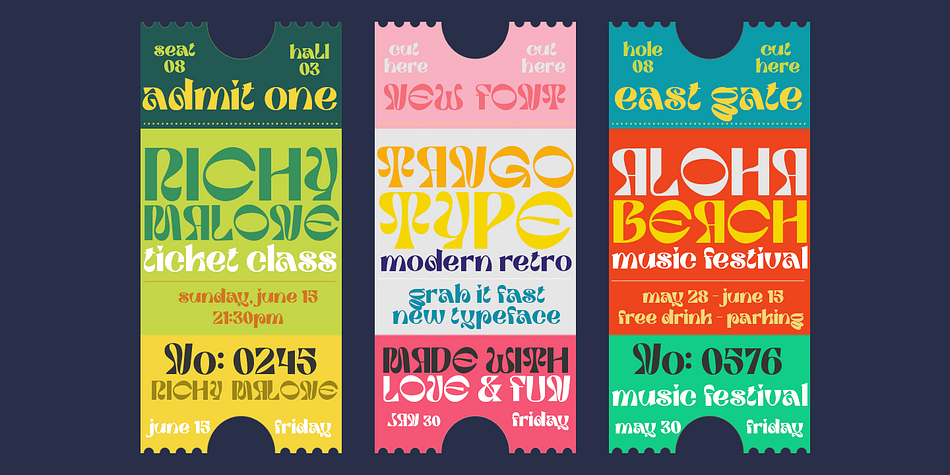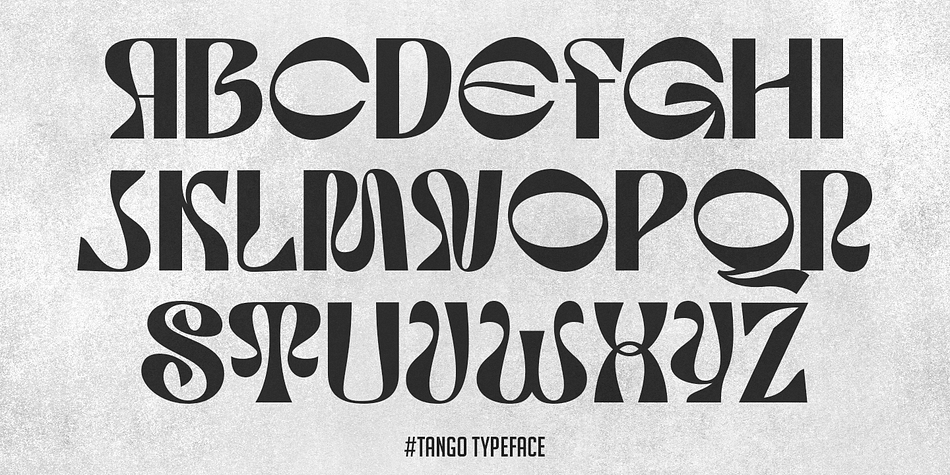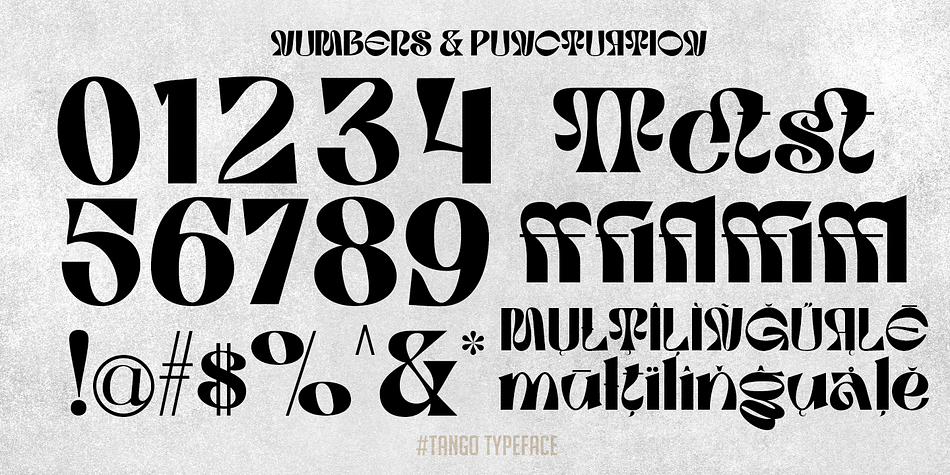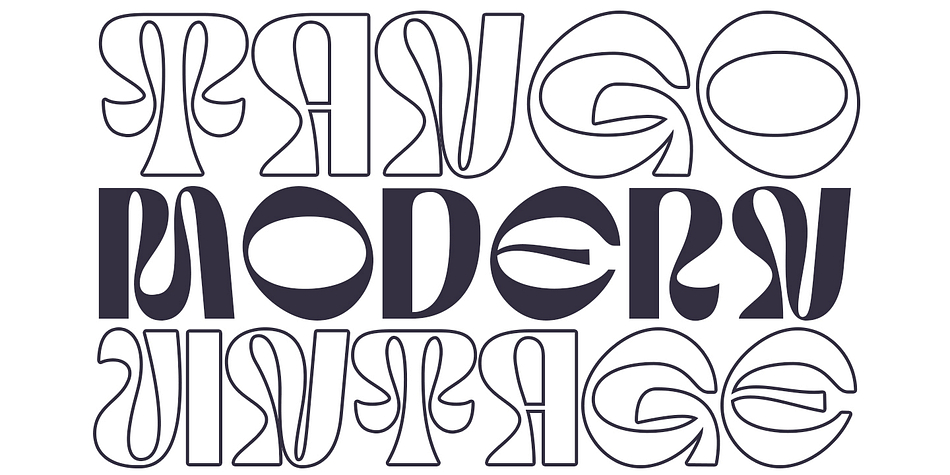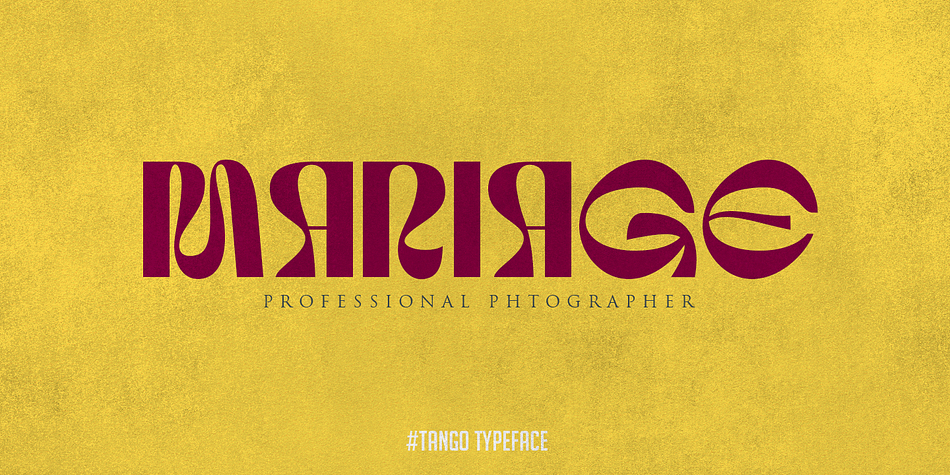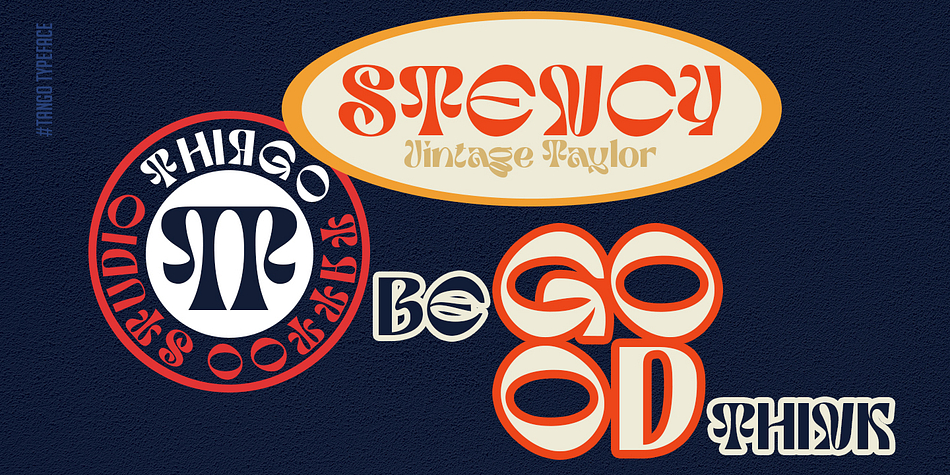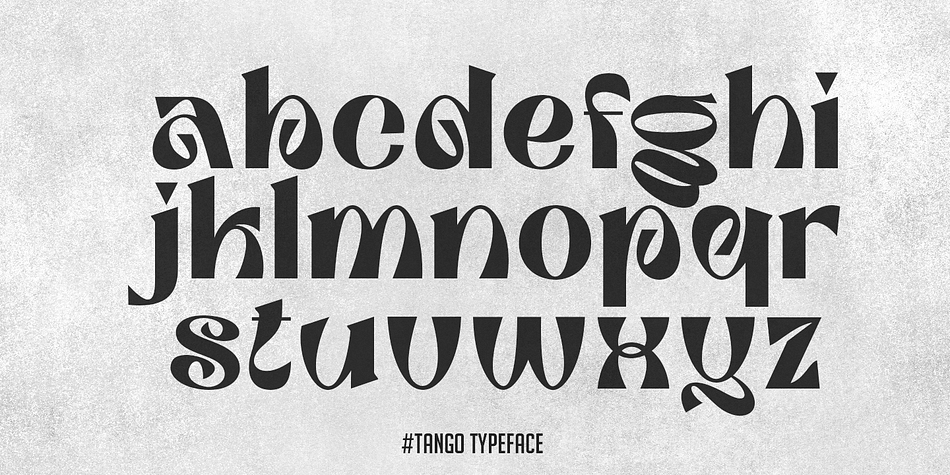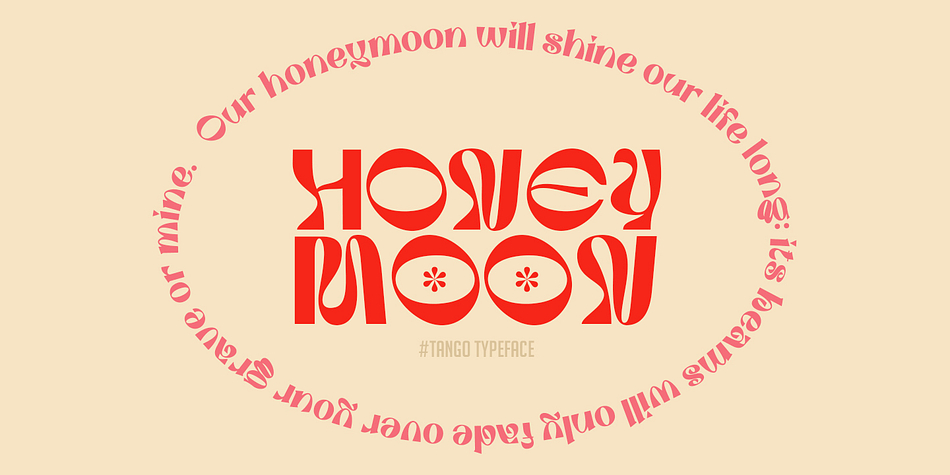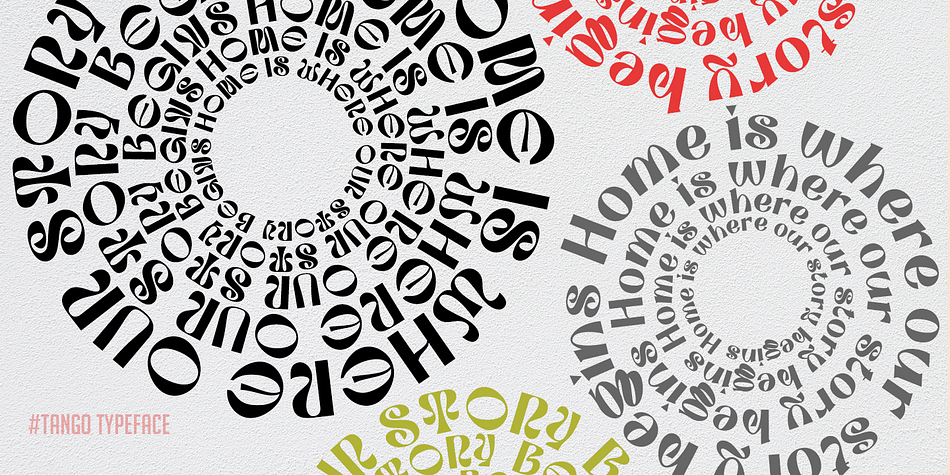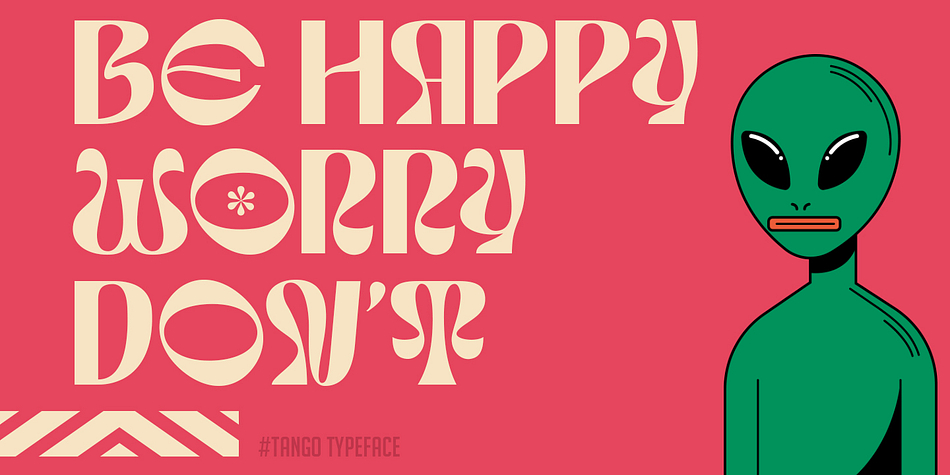
Designed by Suandana Ipandemade, Tango is a retro font family published by madeDeduk.
Introducing Tango Modern Retro Font, use this font for any branding, product packaging, invitation, quotes, t-shirt, label, poster, logo etc.
Uppercase & Lowercase
Number & Symbol
International Glyphs
Multilingual support
Alternative
Ligature